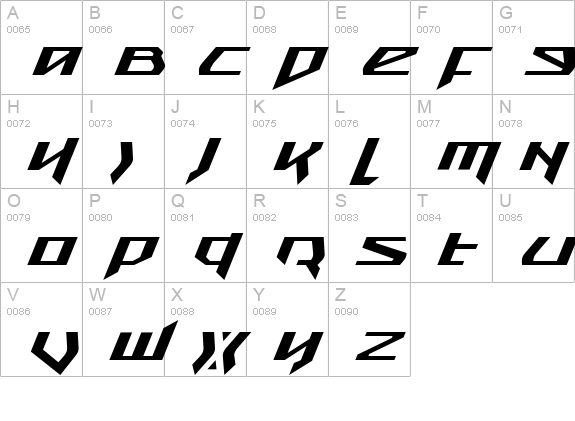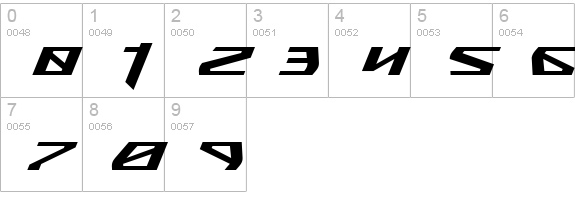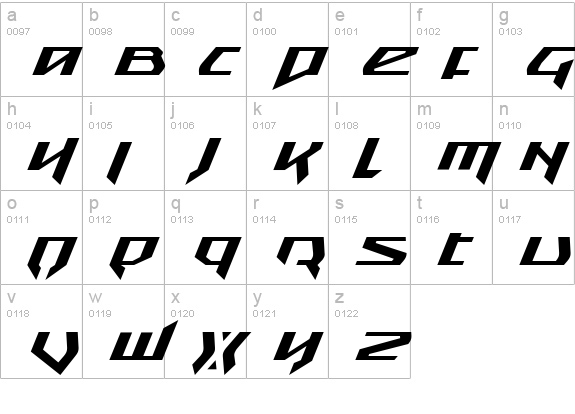
Snubfighter Expanded Italic is a distinctive, extended-width, italic variant in the Snubfighter typeface family \xE2\x80\x94 well suited to design and typography projects.
The Snubfighter Expanded Italic font is a sleek and modern typeface that exudes sophistication and style. Its elongated and italicized design adds a touch of elegance to any project, making it perfect for branding, headlines, and editorial layouts. With its clean lines and contemporary flair, this font is sure to make a statement and capture attention. Best of all, the Snubfighter Expanded Italic font is available for free download at FontsMarket.com. Whether you're a designer looking to enhance your creative projects or a business in need of a fresh new look, this font is the perfect choice. Don't miss out on the opportunity to elevate your designs with this stunning typeface, now freely accessible for all at FontsMarket.com.